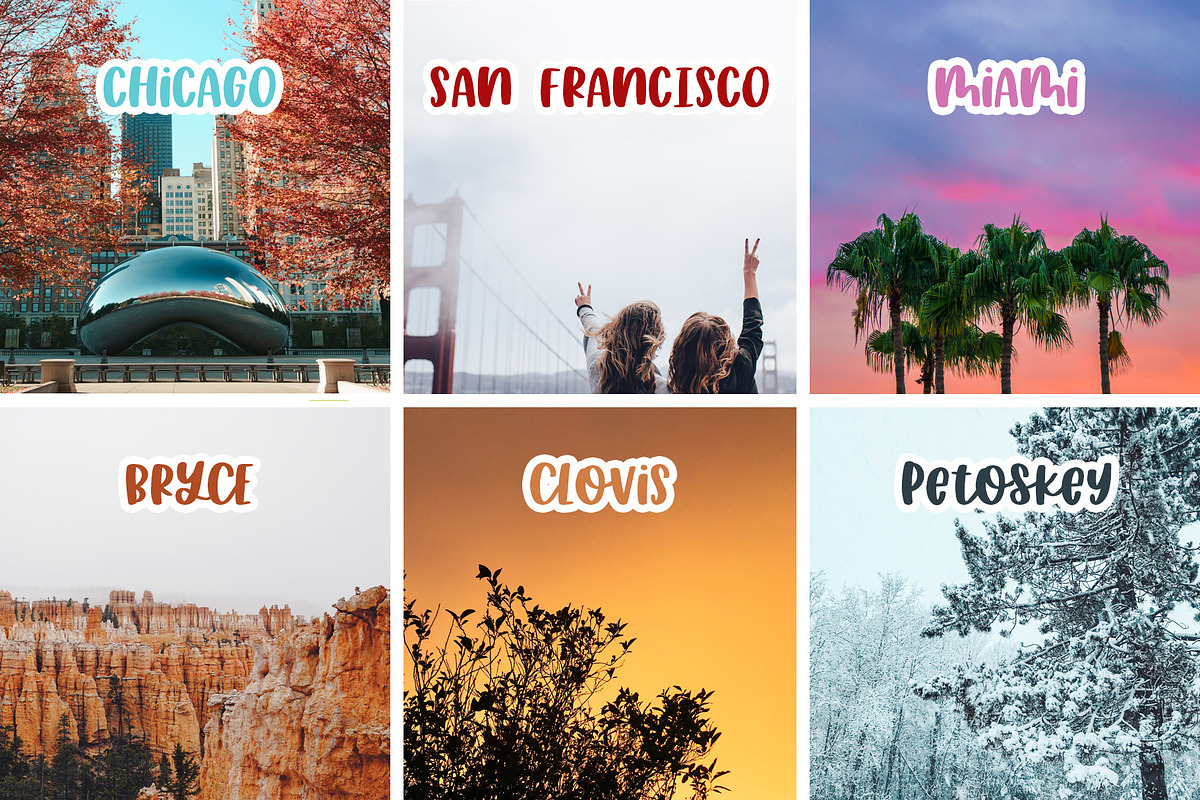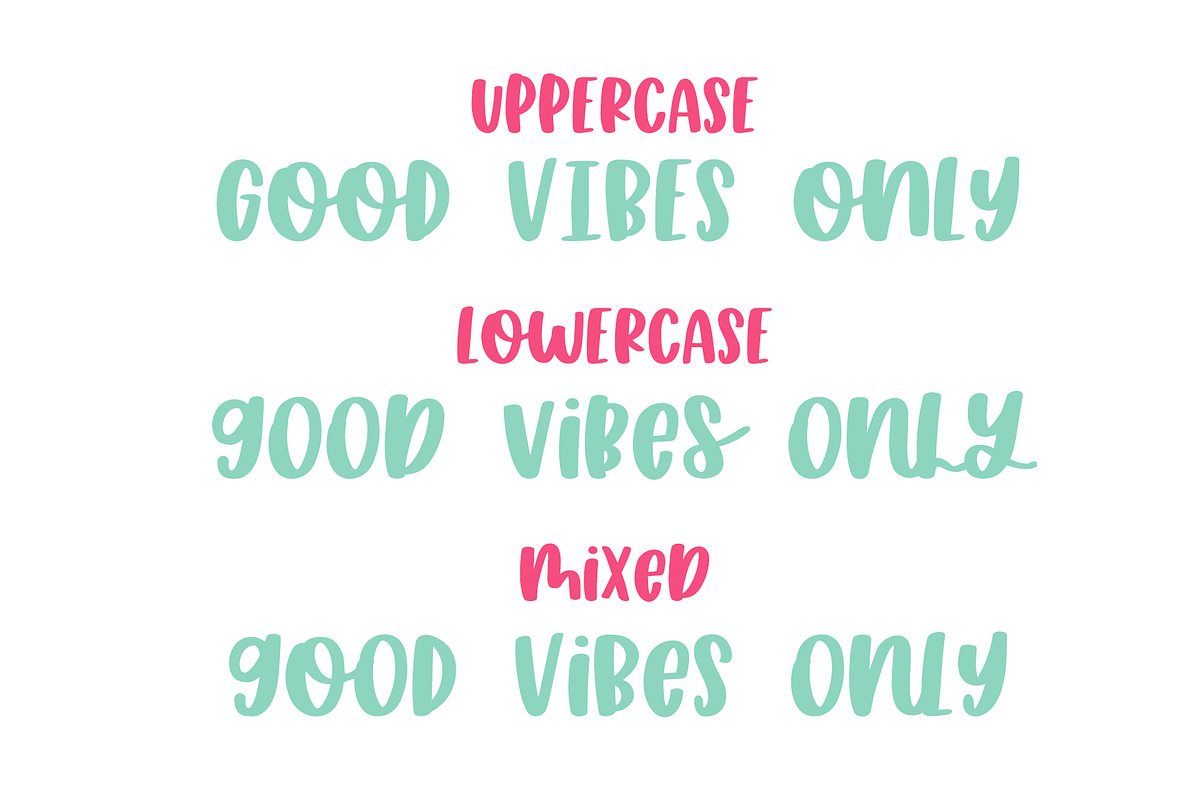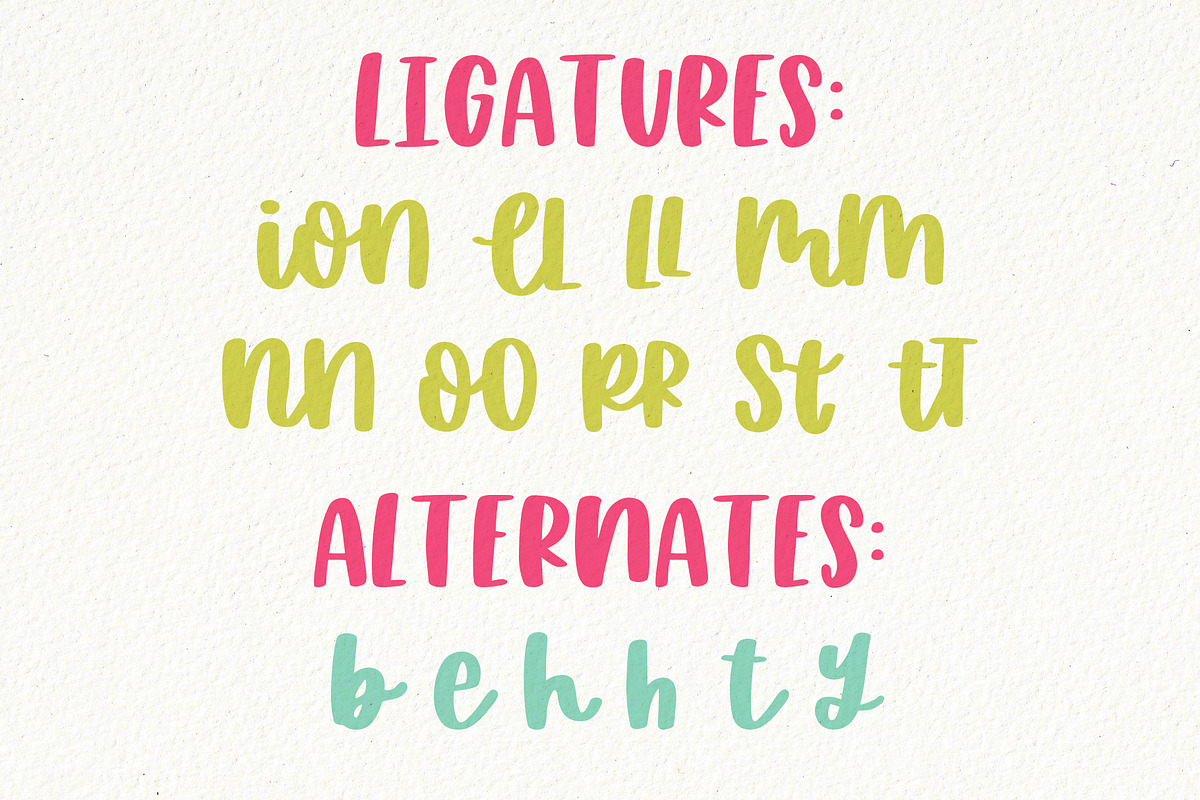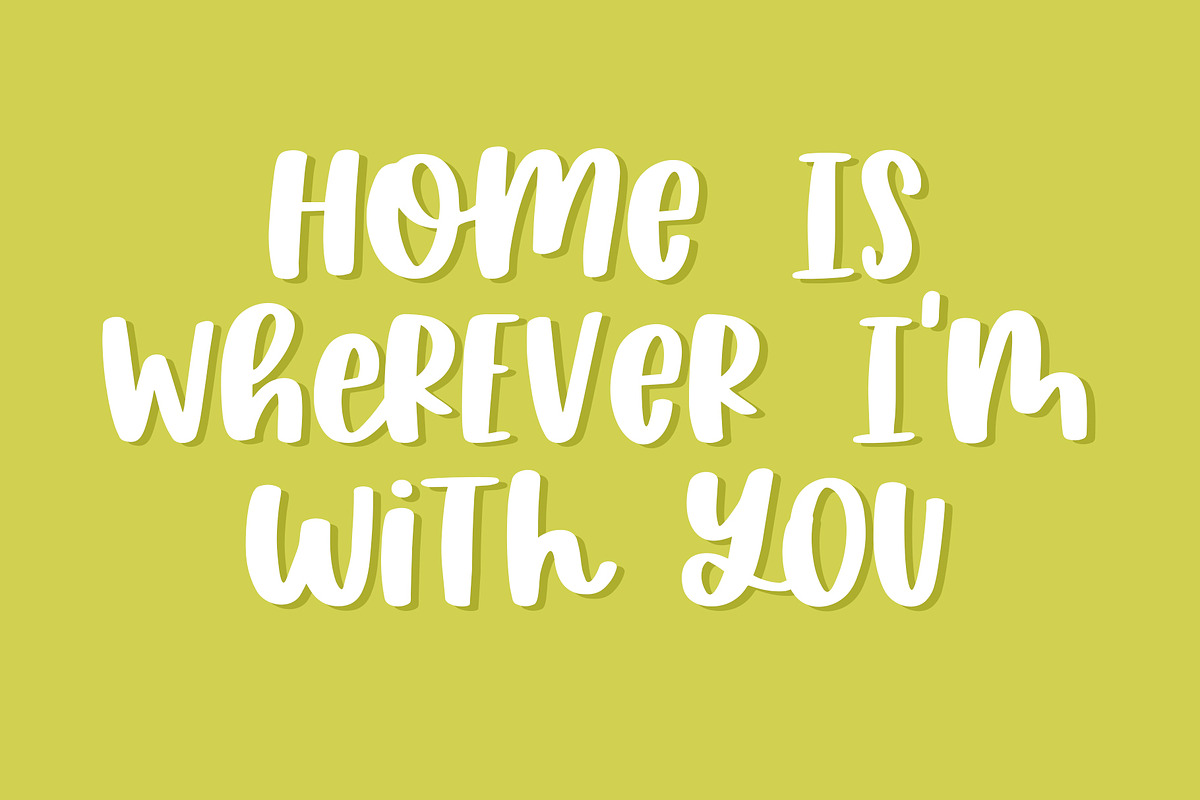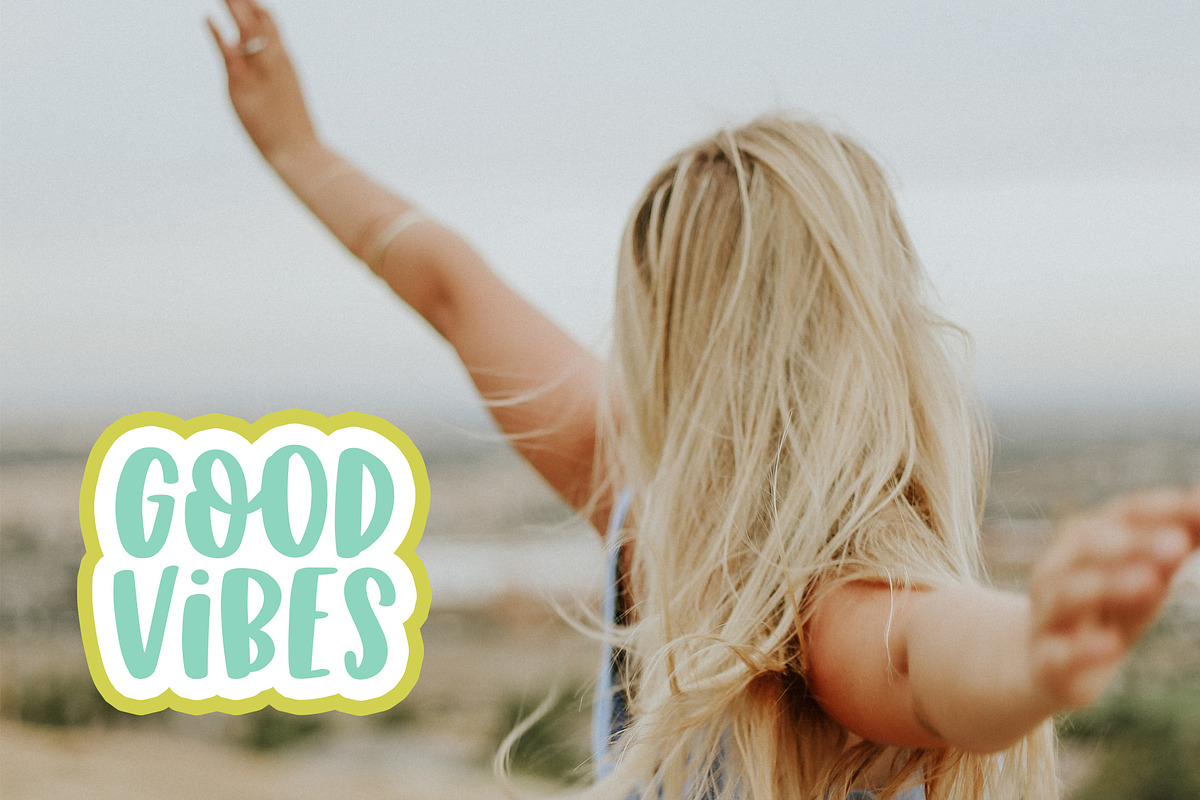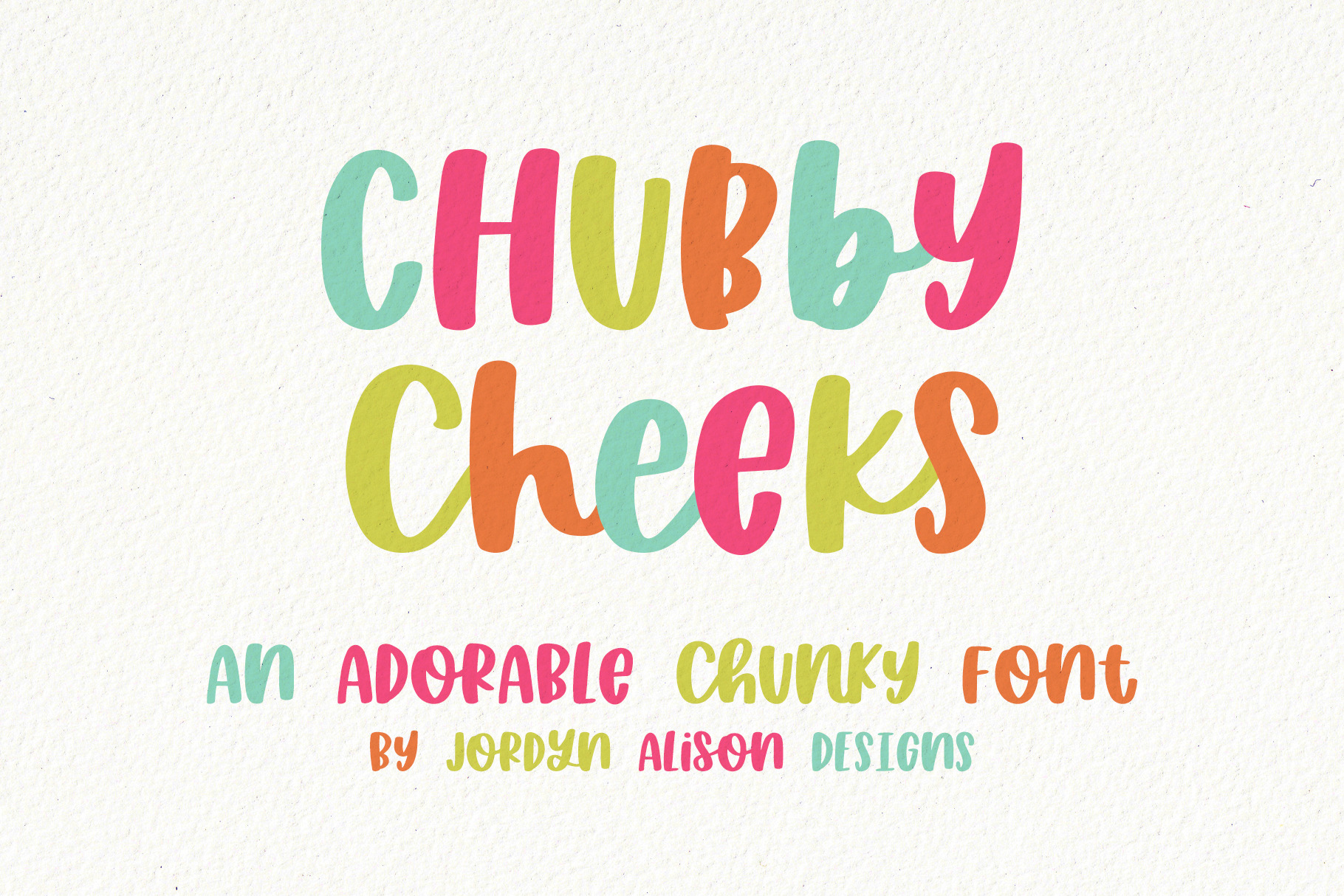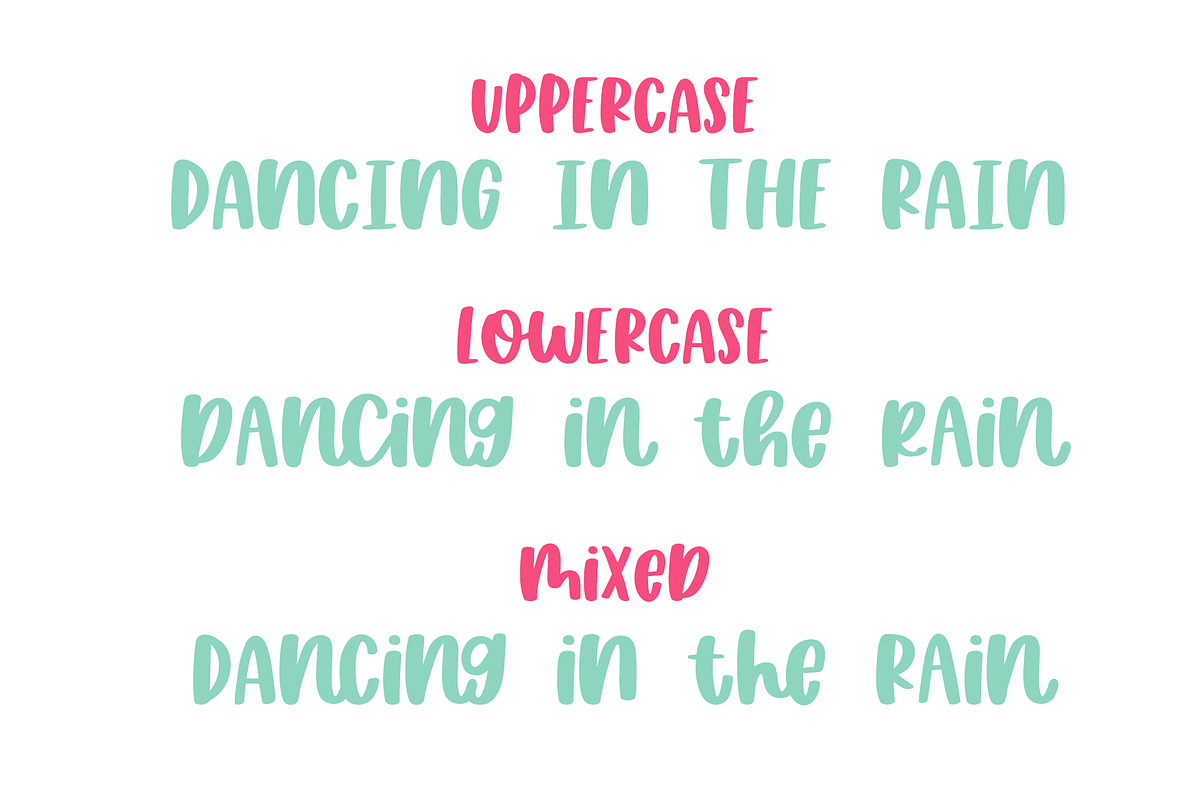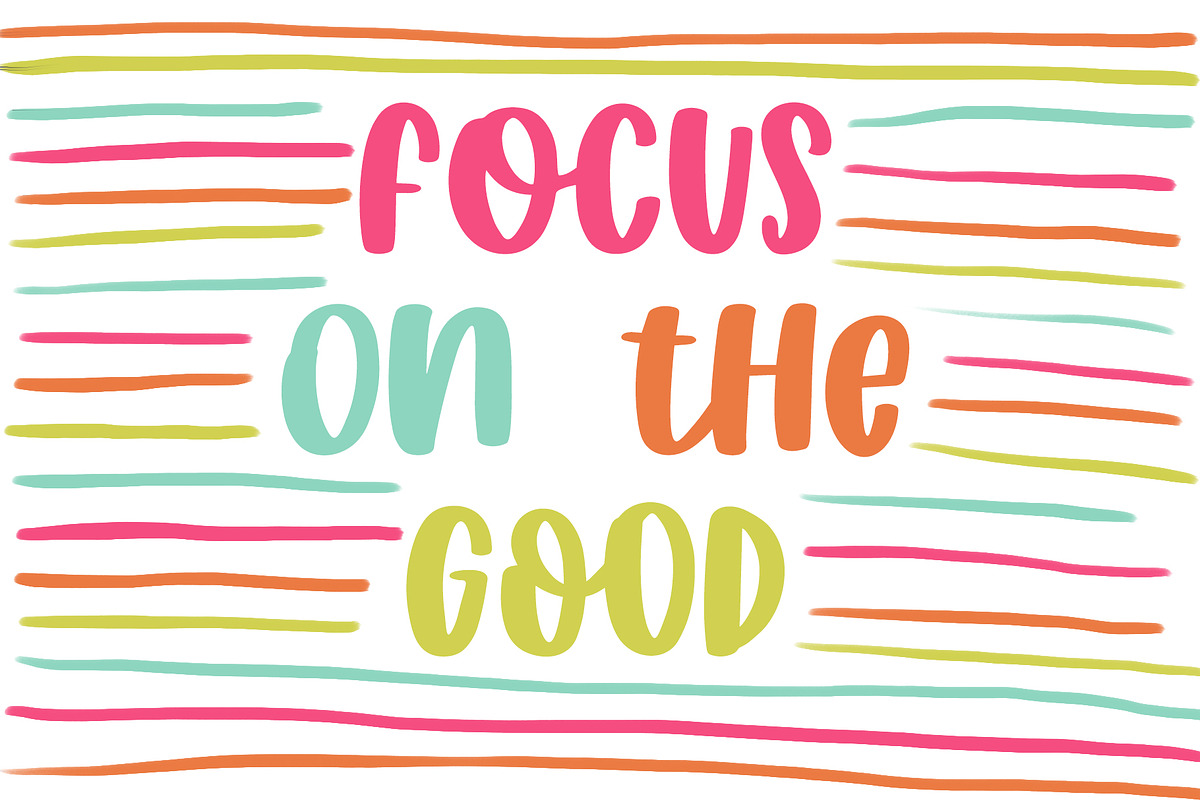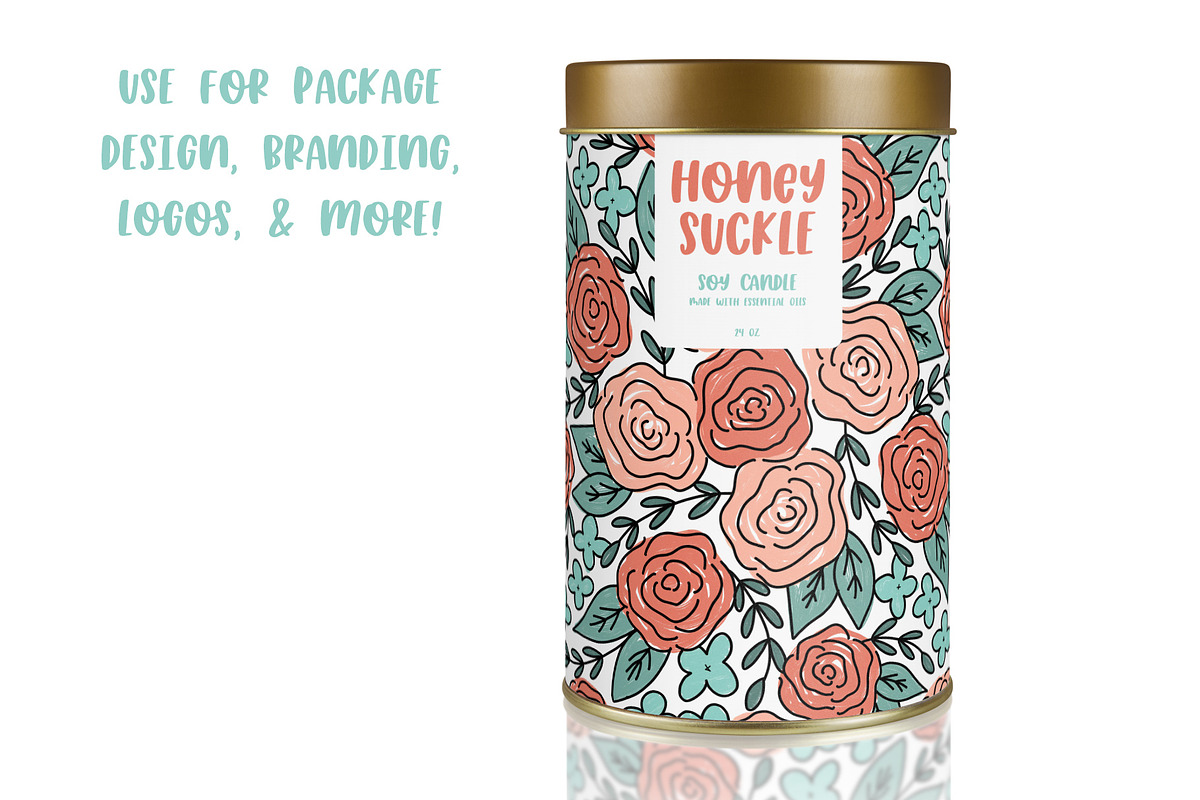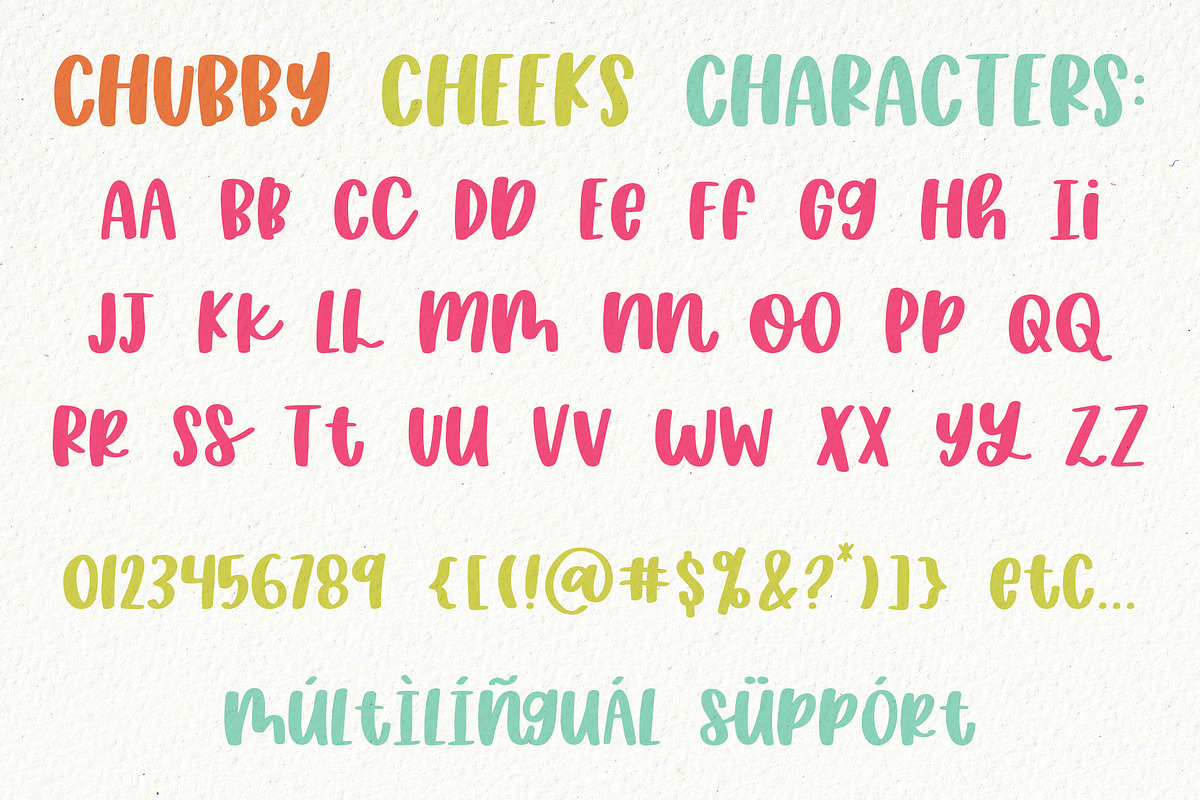
Chubby Cheeks, Sans Serif Font
Chubby Cheeks is a fun hand lettered sans serif font. It's thick which makes it perfect for cutting with vinyl, paper, or the like. Use it for branding, social media posts, SVG designs, and more.
- A full set of uppercase and lowercase letters
- 7 Standard Ligatures
- 2 Discretionary Ligatures
- 6 Alternate Characters
- Numbers, punctuation, and multilingual support for Western European languages